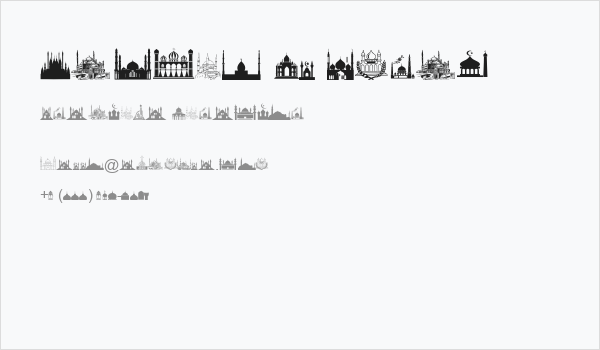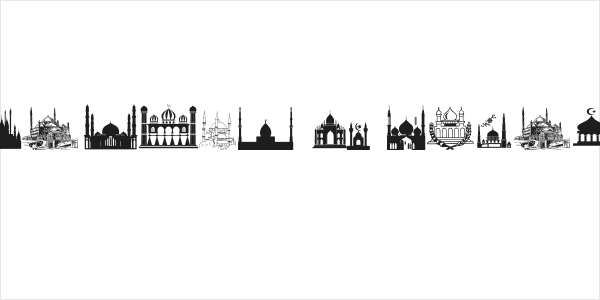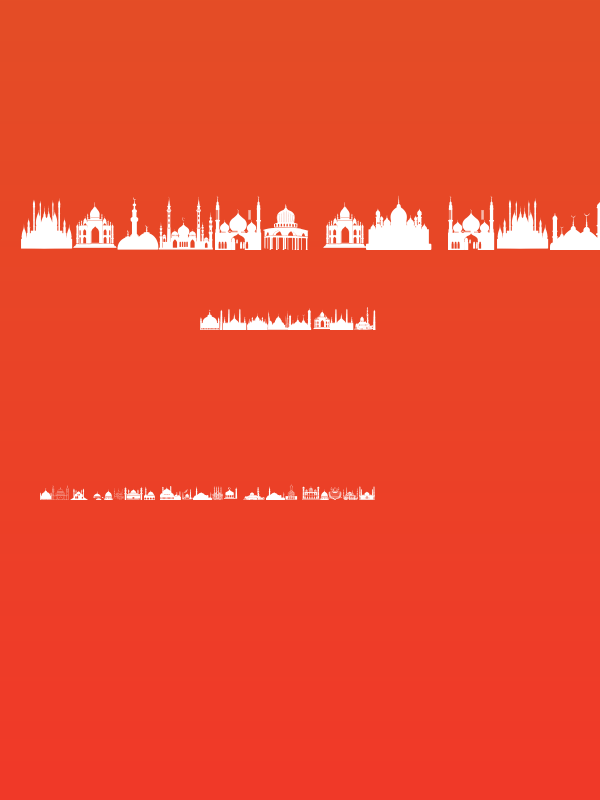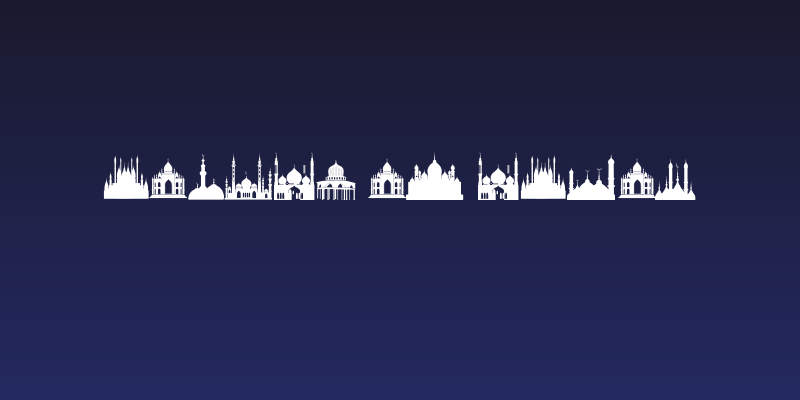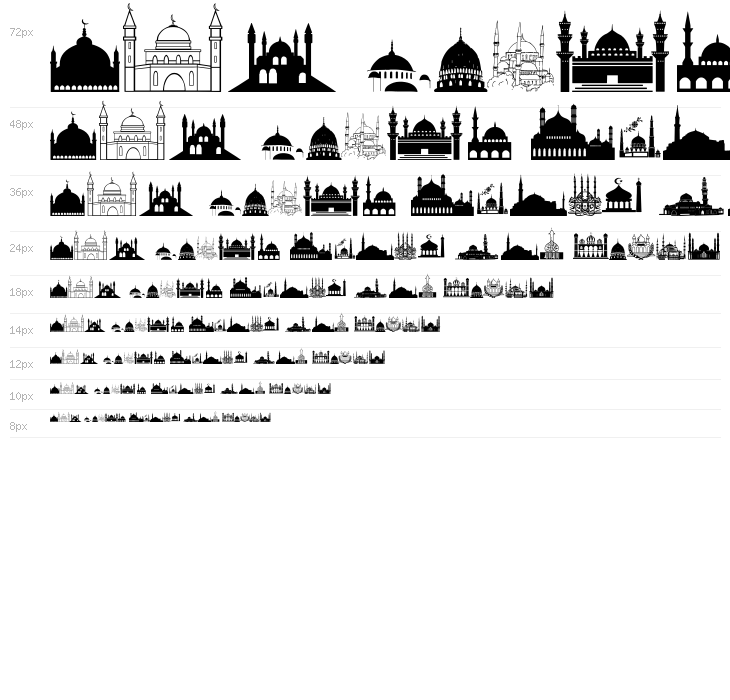
Masjid Al Imran Font
Masjid Al Imran Description
This is not a traditional font but rather a collection of mosque silhouettes and Islamic architectural elements. The design features a variety of mosque structures, domes, minarets, and other related motifs, each intricately detailed to capture the essence of Islamic architecture. The silhouettes are bold and striking, with a strong emphasis on vertical elements like minarets and domes. The collection also includes some decorative elements such as palm trees and crescent moons, adding to the thematic consistency. This set is more of a decorative or illustrative resource rather than a functional typeface for text.
| Use Case | Decorative elements, Illustrations, Thematic designs |
| Proposed Projects | Ideal for cultural or religious event posters, educational materials about Islamic architecture, or decorative elements in design projects related to Islamic themes. |